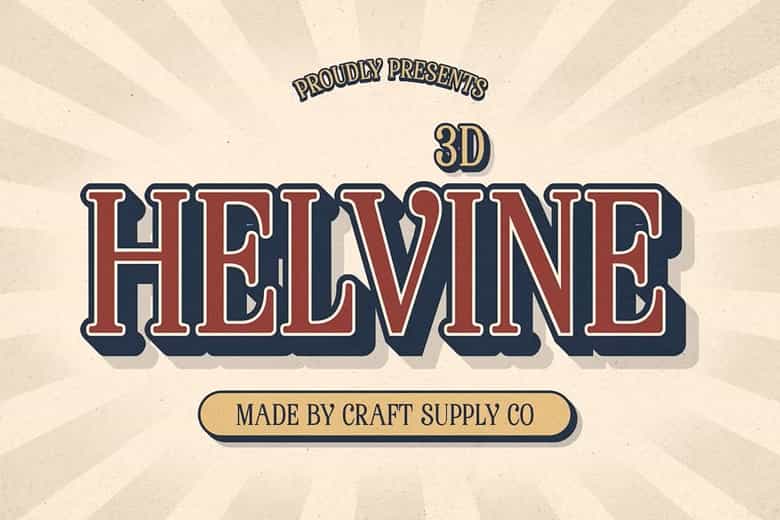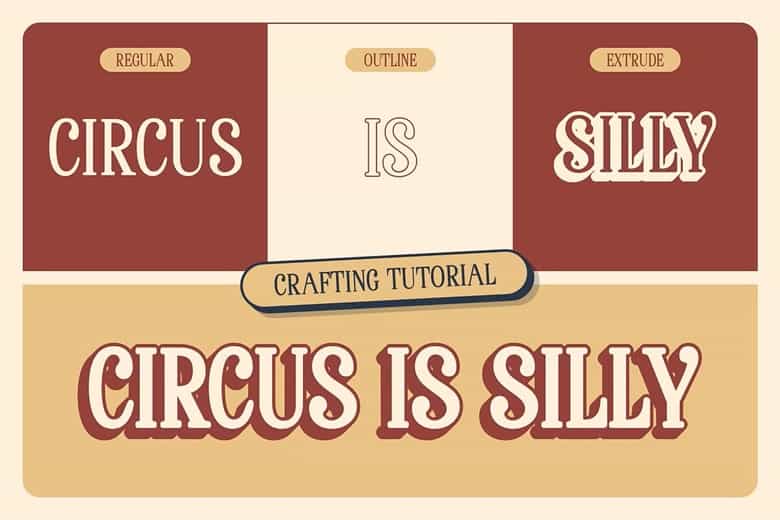
A classic serif font, Helvine 3D exudes a timeless elegance while being given a further small touch of elegance with a delicate 3D effect. Suggesting sophistication and charm, the graceful, refined letterforms make it a good choice for high end branding, luxury editorial projects and any other refined visual design.